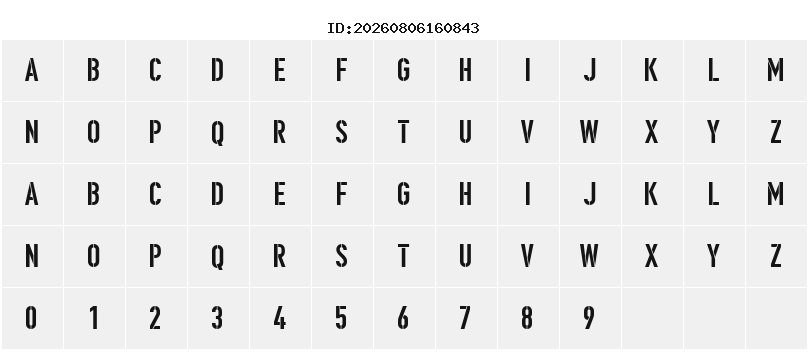
Ombudsman Stencil Preview
• Font Name: Ombudsman Stencil
• Designer: Rusty
About Ombudsman Stencil.ttf
Ombudsman Stencil.ttf is a modern, elegant sans-serif font designed for ultimate readability and visual harmony. Perfect for branding, headlines, web design, and print materials.